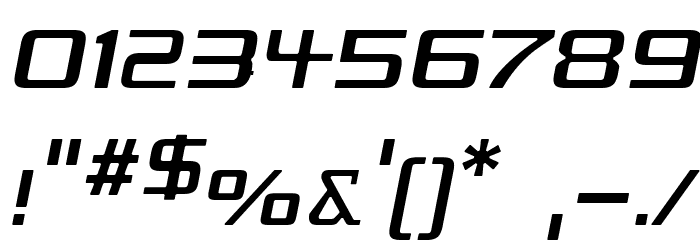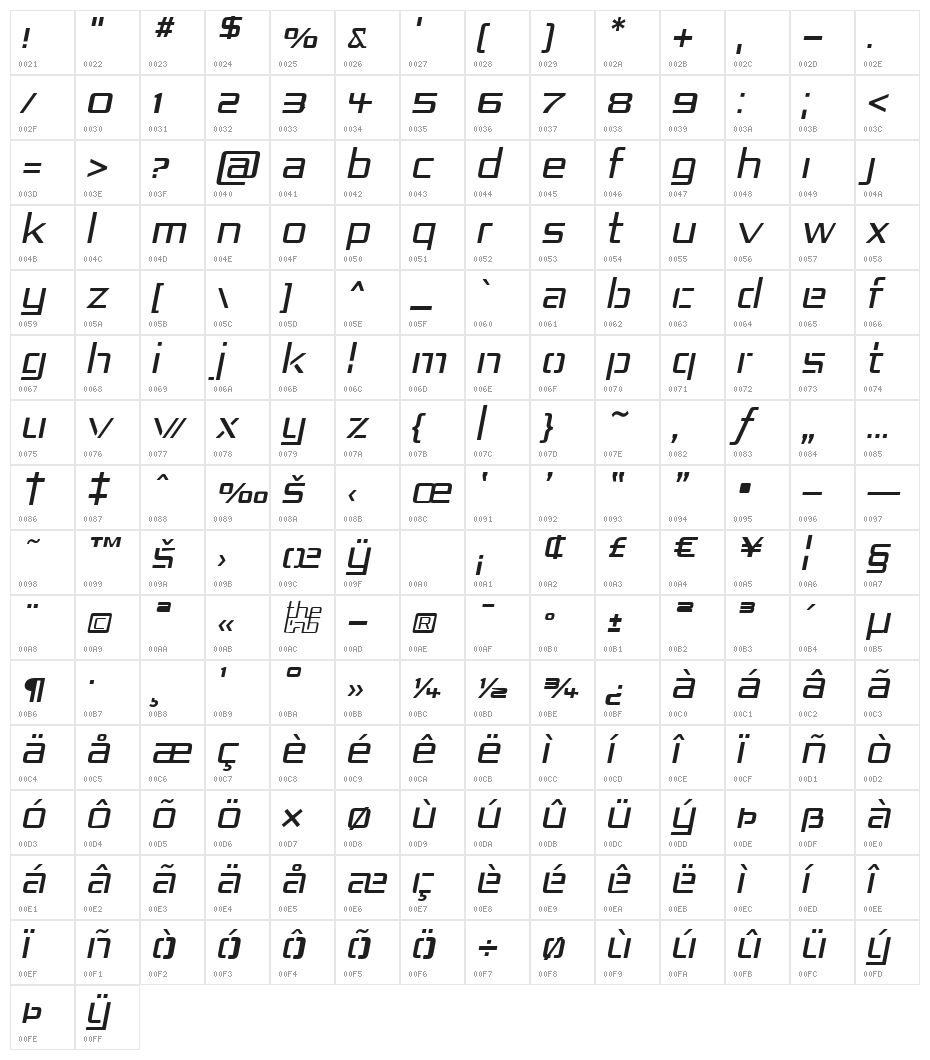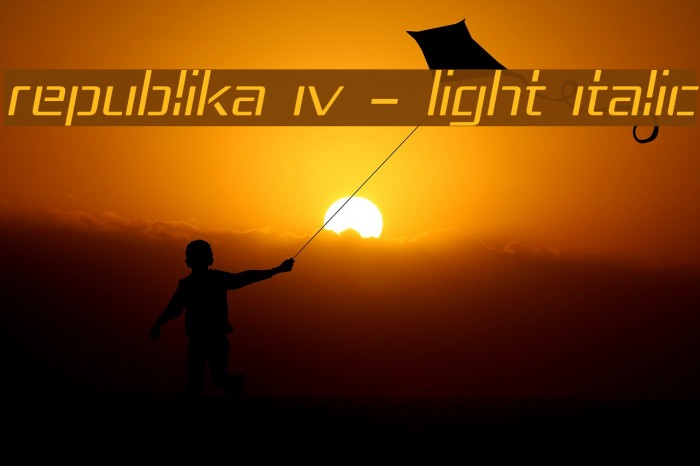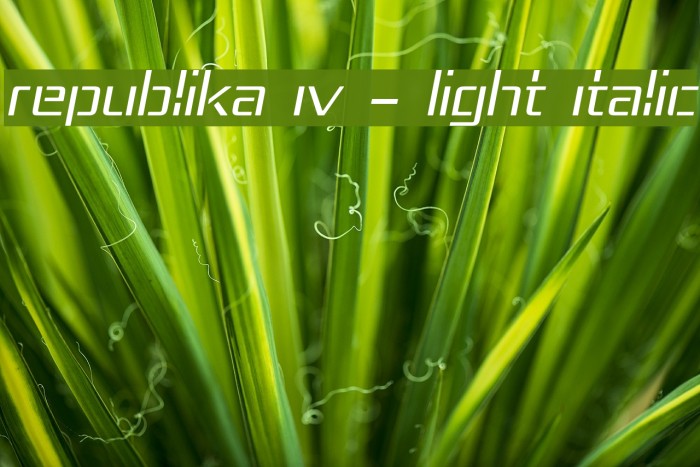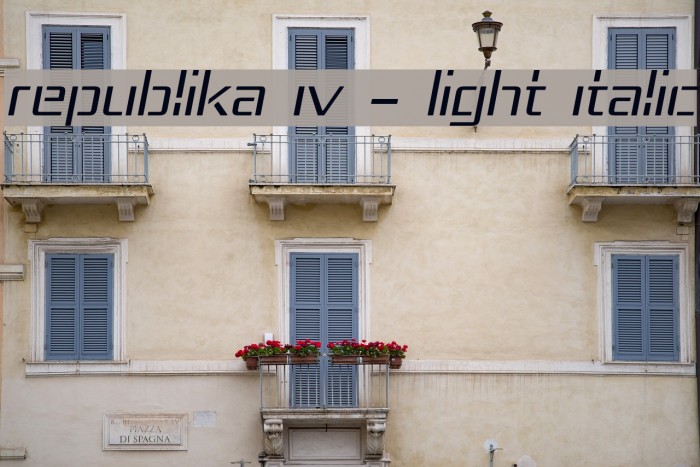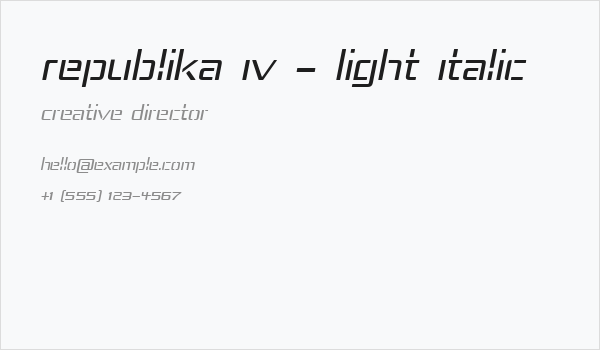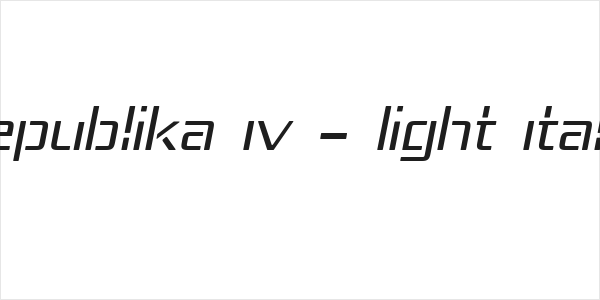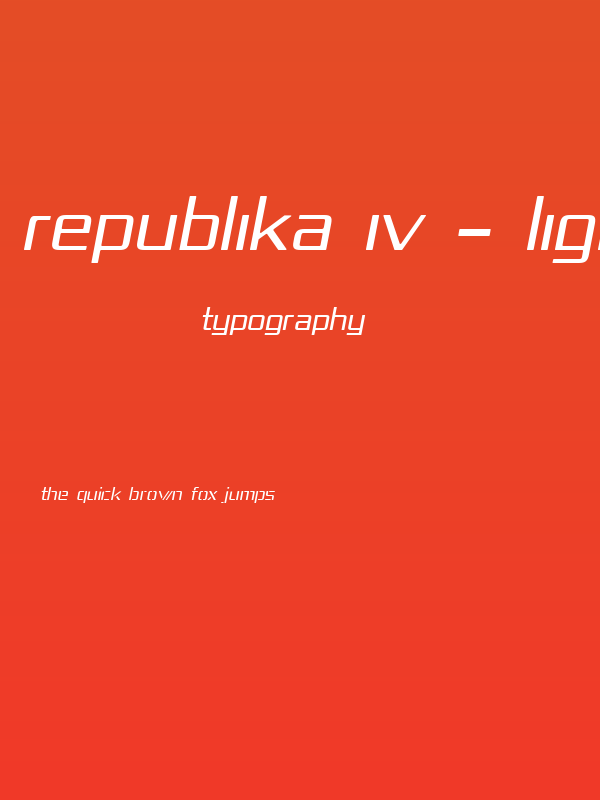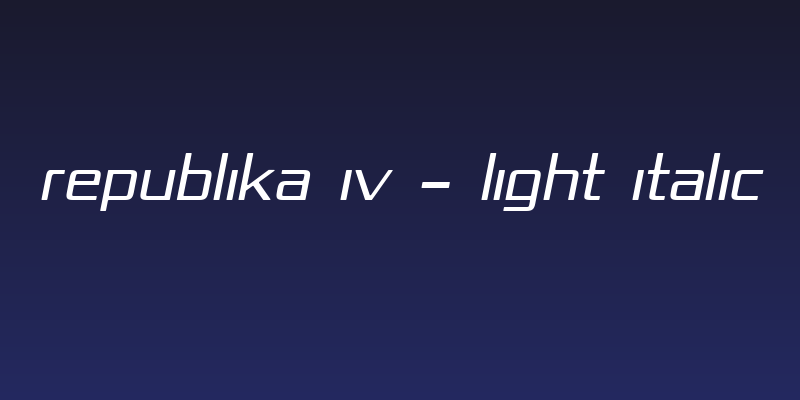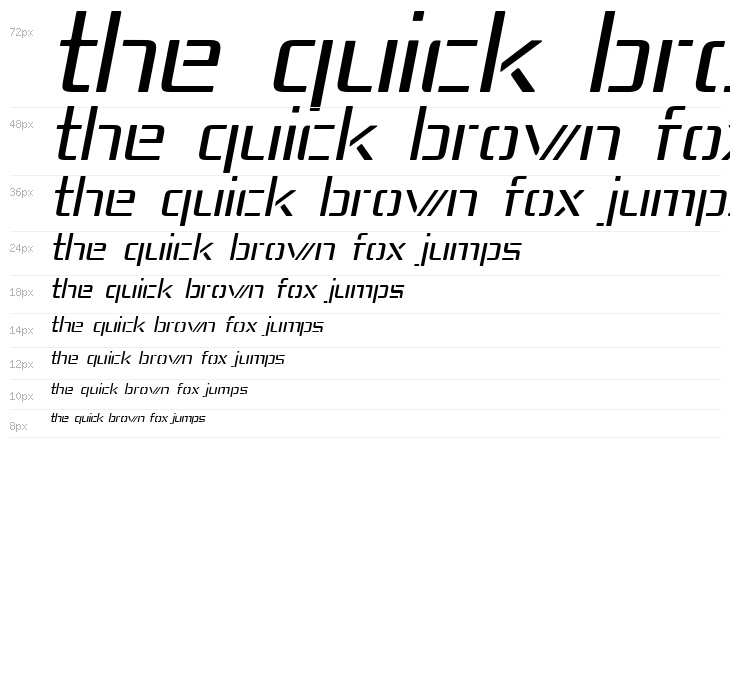
Republika IV - Light Italic Font
Republika IV - Light Italic Description
This font features a sleek, modern design with a distinct italic slant, giving it a dynamic and forward-moving appearance. The characters are crafted with precision, showcasing a geometric structure that balances sharp angles with smooth curves. The overall look is clean and sophisticated, making it suitable for contemporary design projects. The lowercase letters maintain a consistent height, while the uppercase letters stand out with their bold presence. Numbers and special characters are designed to complement the alphabet, ensuring a cohesive visual style across all elements.
| Proposed Projects | Ideal for branding, advertising, and editorial design where a modern and dynamic aesthetic is desired. |